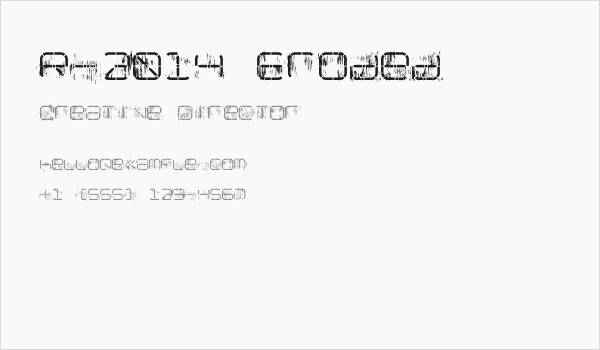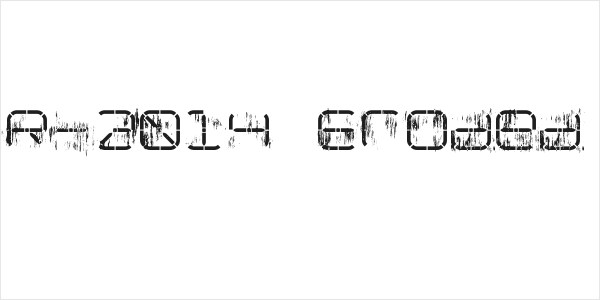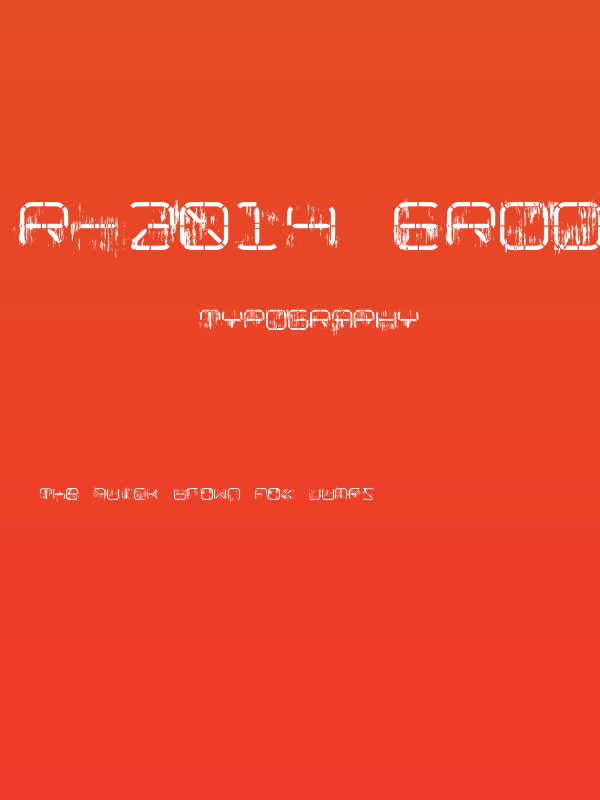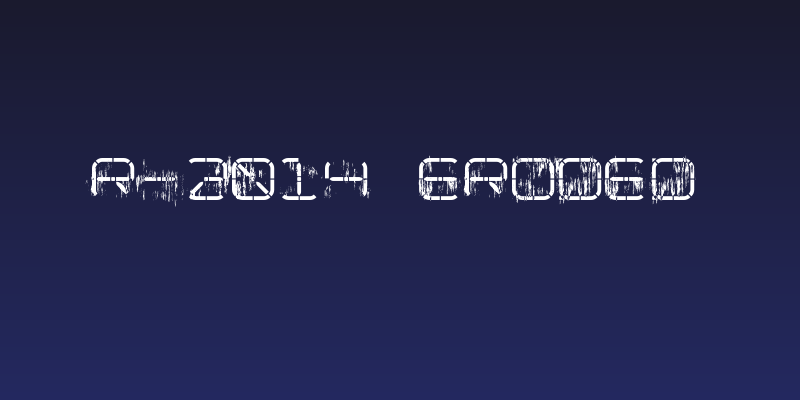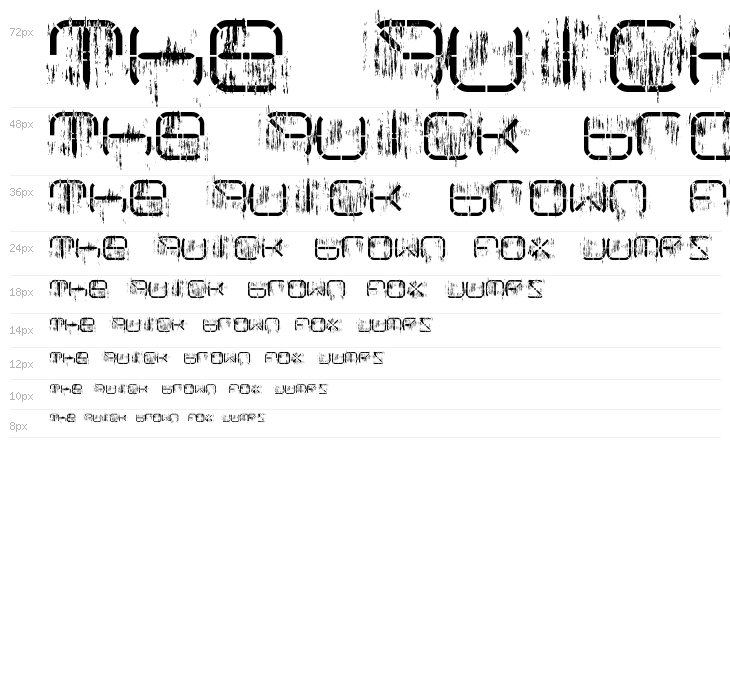
R-2014 Eroded Font
R-2014 Eroded Description
This font features a distressed, eroded style that gives it a gritty, worn appearance. The characters are bold and geometric, with a consistent structure that is partially obscured by a textured, weathered effect. This design choice creates a sense of age and ruggedness, making it ideal for projects that require a vintage or industrial feel. The uppercase and lowercase letters maintain a uniform width, while the numbers and special characters follow the same eroded pattern, ensuring a cohesive look across all text. The font's unique style is both eye-catching and versatile, suitable for various creative applications.
Overall StyleVintage
Proposed ProjectsIdeal for posters, album covers, branding for rugged or vintage-themed products, and any design needing a distressed look.